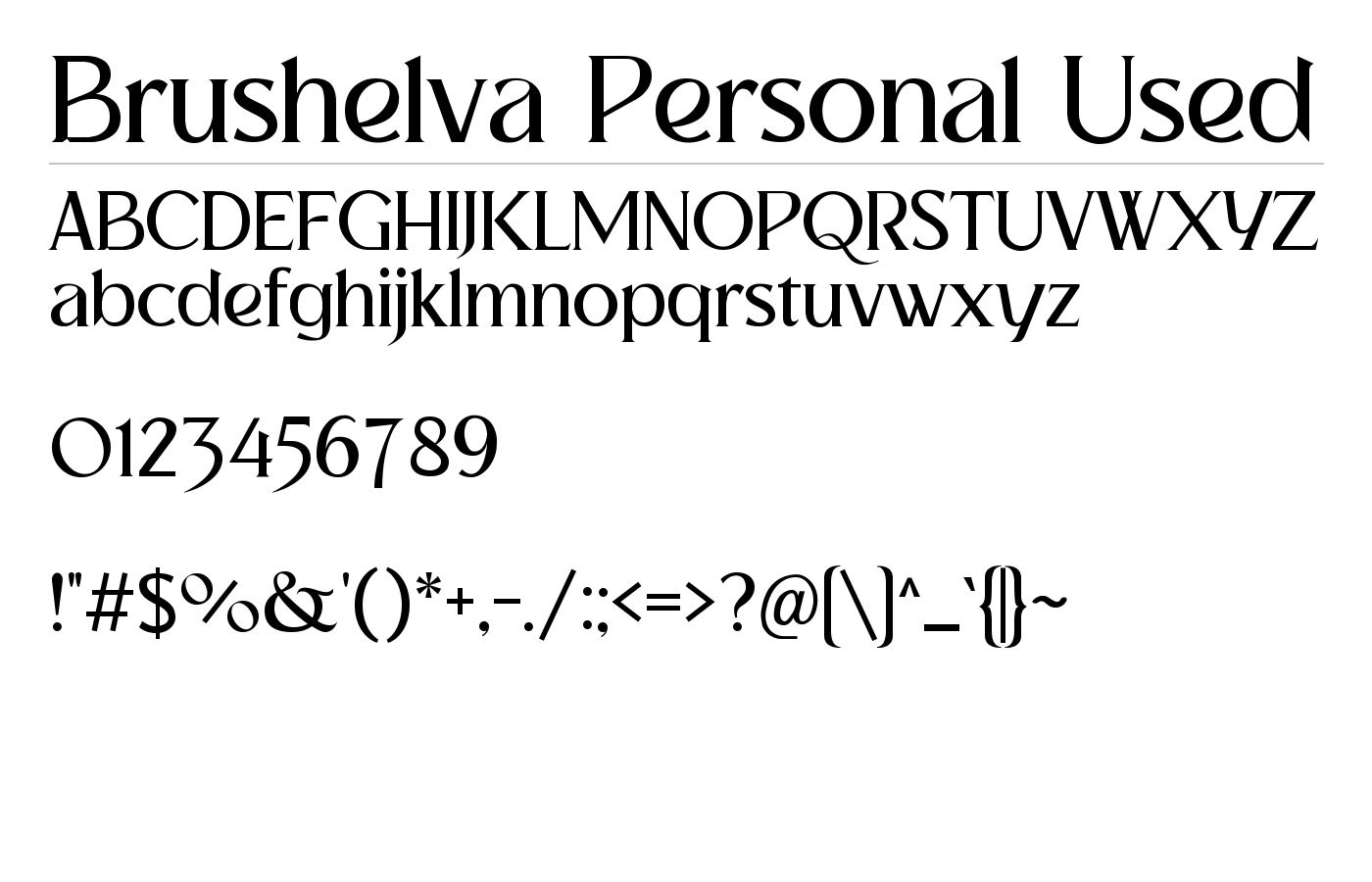
Brushelva is an elegant serif font with a distinctive modern touch, featuring high contrast between thick and thin strokes and sharp, refined serifs that give it a sophisticated yet approachable personality. Its narrow width and moderately tall x-height make it ideal for stylish headlines, branding, and editorial designs where a touch of classic refinement with contemporary flair is desired. This font works well in luxury packaging, fashion branding, and upscale print materials, adding a sense of grace and uniqueness to any project.
Brushelva Font
About Brushelva Font
| Designer | Lettercorner Studio |